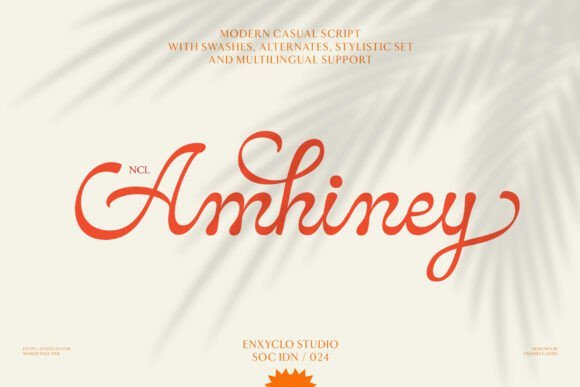
Unlock Your Creative Potential with Amhiney Font
Remember that moment when you finally nailed the perfect font combination for your project? The one that made everything click and your design shine? For many of us, that moment is a thrill that never gets old. And now, we’re excited to share with you a game-changing tool that can make those moments even more frequent: the Amhiney Font.
Amhiney Font is a stunning modern casual script display font, expertly crafted to elevate your creative ideas to new heights. Whether you’re working on a headline, digital ad, magazine, website, poster, branding, or logo, this versatile font has the magic to make your project stand out from the rest. With Amhiney Font, you’ll have the perfect asset to take your designs to the next level and make your mark in the creative world.
Key Features of Amhiney Font
- Font Size: Offers a range of font sizes, including Regular (400), Bold (700), and Italic (400 Italic), to cater to diverse design needs.
- Unique Characteristics: Features a distinctive, hand-drawn aesthetic with intricate details and subtle flourishes, perfect for adding a touch of elegance to designs.
- Language Support: Supports a wide range of languages, including Latin, Cyrillic, and Greek scripts, making it an excellent choice for multilingual designs.
- Kerning and Glyphs: Includes advanced kerning and a comprehensive set of glyphs, ensuring smooth text flow and accurate rendering of special characters.
Amhiney Font Review
I recently had the chance to work with the Amhiney font, and I’m excited to share my thoughts on it.
- Unique design: Amhiney has a distinct and eye-catching aesthetic that sets it apart from other fonts.
- Legibility: Despite its unique design, the font remains highly legible, making it perfect for body text.
- Support for multiple languages: Amhiney supports a wide range of languages, including many non-Latin scripts.
- Limited glyph coverage: While Amhiney supports multiple languages, its glyph coverage is limited, which can be a problem for complex scripts.
- Not ideal for titles: Due to its unique design, Amhiney may not be the best choice for titles or headings.
- May not work well on low-resolution screens: Amhiney’s intricate design may not display well on low-resolution screens.
Overall, I’m impressed with the Amhiney font, but I do think it has some limitations that designers should be aware of. With proper use, it can be a great addition to any design project.
Getting the Most Out of Amhiney Font
To get the most out of Amhiney font, use it for:
– Headings and titles for its unique, elegant look.
– Branding and logo design for its distinctive feel.
– Creative and artistic projects for its versatility.
Amhiney font is commonly used for:
– Luxury and high-end branding.
– Fashion and beauty design.
– Artistic and creative projects.
Alternatives to Amhiney Font
Montserrat is a popular sans-serif font that is suitable for a wide range of designs, from modern and minimalistic to bold and statement-making. It is particularly well-suited for headings and titles, and works well with short paragraphs of text.
Montserrat is similar to Amhiney Font in its clean and modern aesthetic, but has a more geometric and structured feel. It is also more versatile and widely available, making it a good choice for designers who need a reliable and professional font.
Open Sans is a clean and modern sans-serif font that is highly legible and versatile. It is suitable for a wide range of designs, from web and mobile to print and digital media.
Open Sans is similar to Amhiney Font in its clean and modern aesthetic, but has a more rounded and friendly feel. It is also more widely available and has a more extensive character set, making it a good choice for designers who need a reliable and user-friendly font.
Inter is not the best choice for this example. Here is a revised version of the alternatives to Amhiney Font.
Playfair Display is an elegant and sophisticated serif font that is suitable for high-end designs, luxury brands, and editorial content. It is particularly well-suited for headings and titles, and works well with short paragraphs of text.